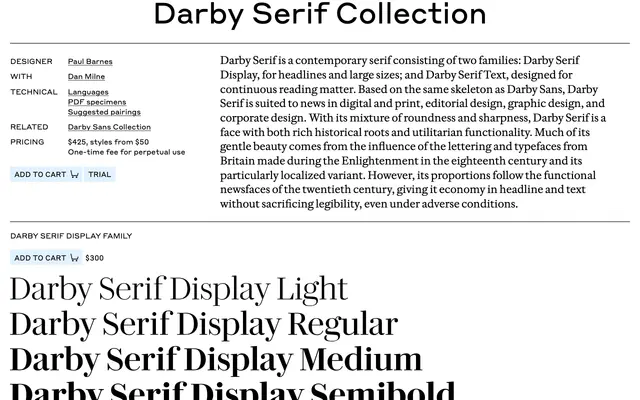
Darby Serif Collection
A contemporary British transitional serif by Paul Barnes built on the Darby skeleton, with Display and Text optical sizes for editorial and news work.
A serif by Paul Barnes with Dan Milne, drawn on the same skeleton as Darby Sans and split into a Display family for headlines and a Text family for continuous reading. Its mixture of roundness and sharpness pulls from the lettering and typefaces of the British Enlightenment, while the proportions follow the functional newsfaces of the 20th century, giving headline and text economy without losing legibility under difficult printing conditions. Suits news, editorial, graphic and corporate design across digital and print.
Commercial Type describe Darby Serif as a contemporary serif built on the same skeleton as Darby Sans, with proportions drawn from 20th-century news typefaces and roots in British Enlightenment lettering. Split into Display and Text optical sizes.